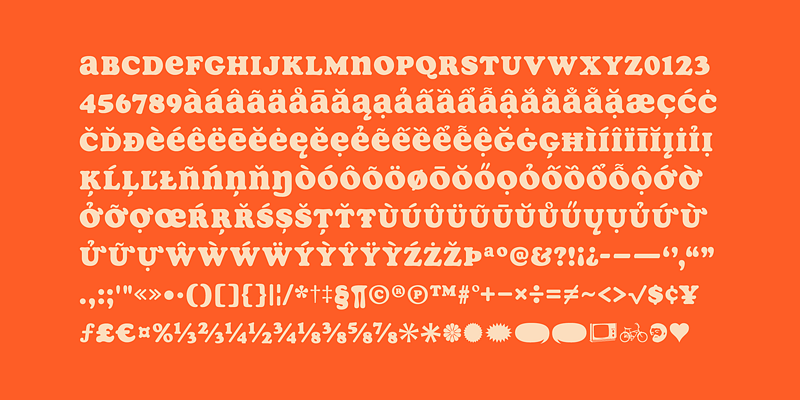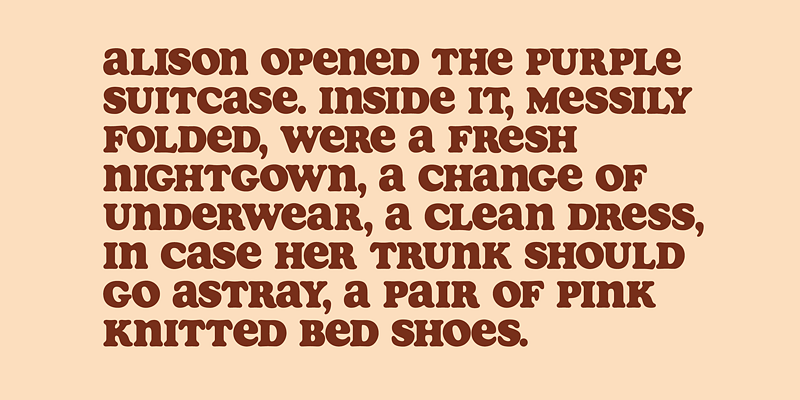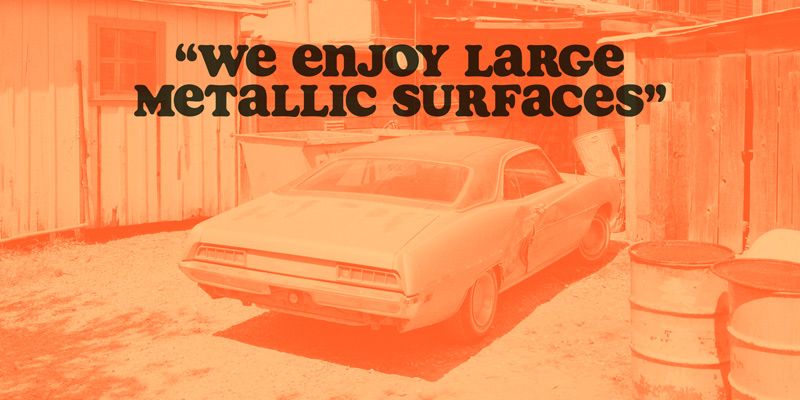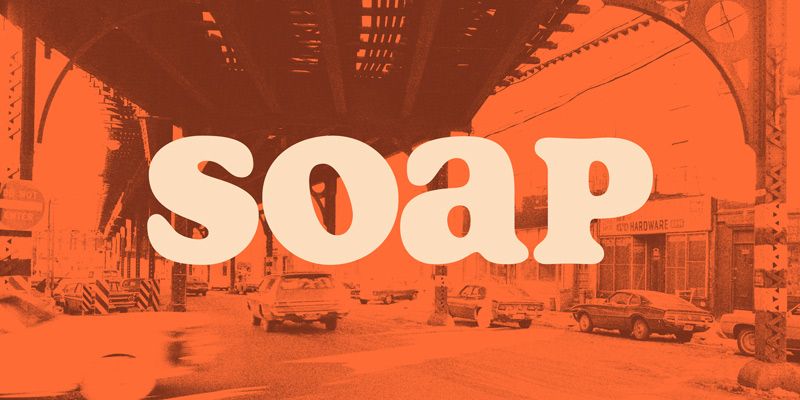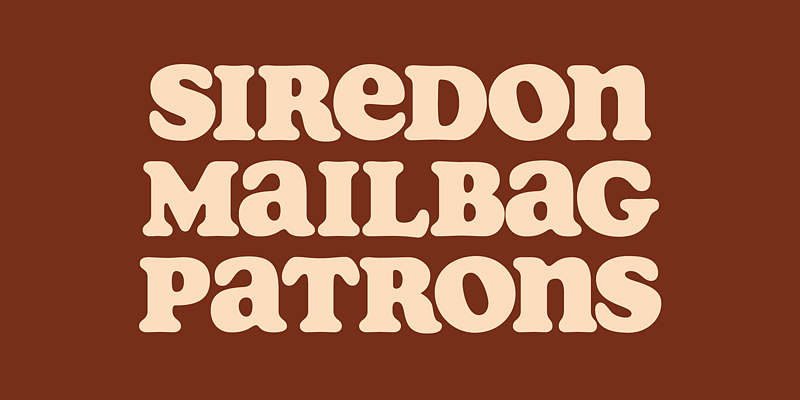
Soap takes the mellow heft of Cooper Black and makes it smoother still. Its unicase letters are closely fitted, with bumps softened into flowing curves that make a short phrase feel like one buoyant shape. The result has a relaxed 1970s flavor without needing extra distress or decoration. Ice cream, candy, bakery goods, music posters, and friendly campaign titles all suit lettering that looks nearly touchable. On a package front, the dense rhythm can turn even a brief flavor name into the central graphic. Strong color makes the soft forms feel more playful.